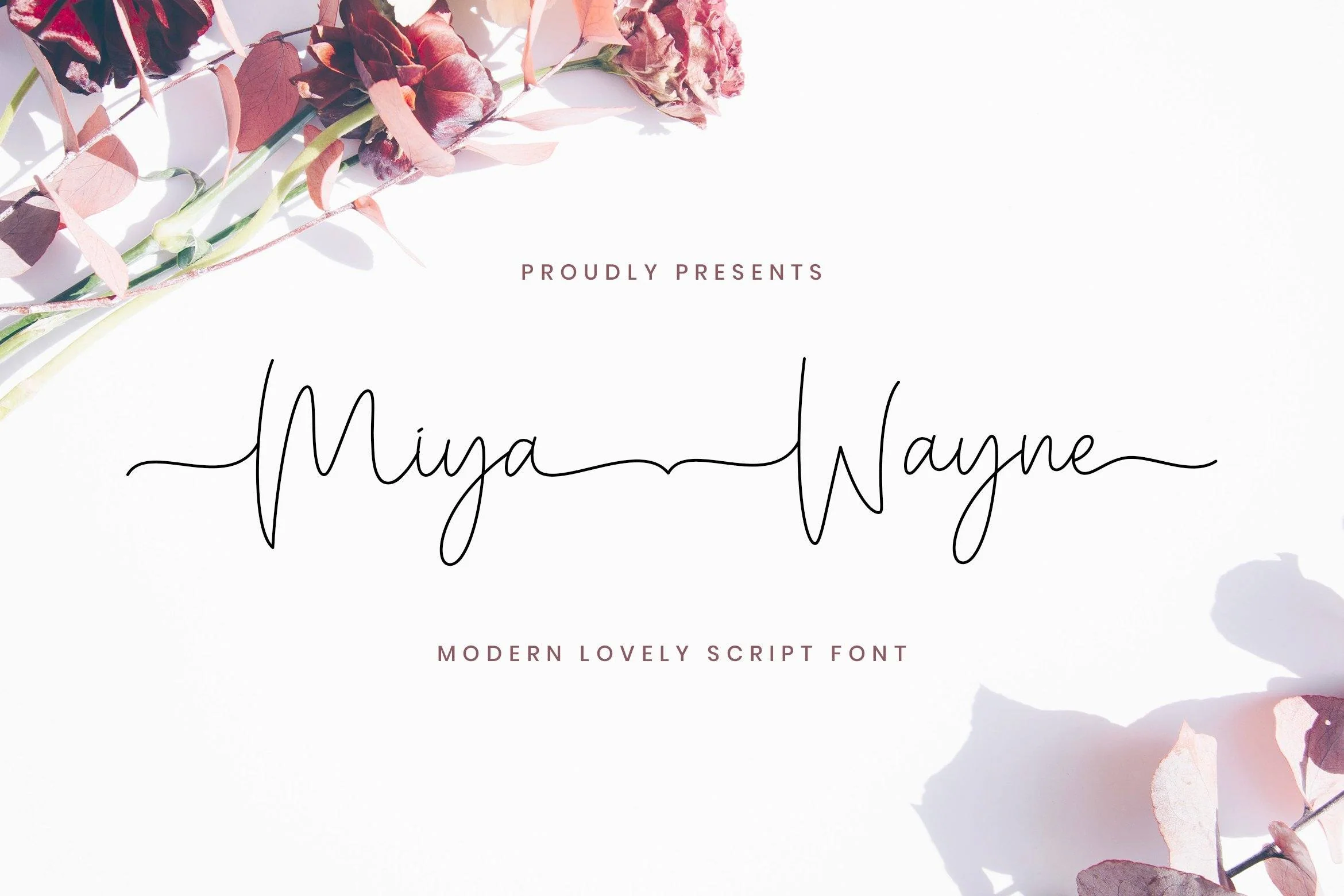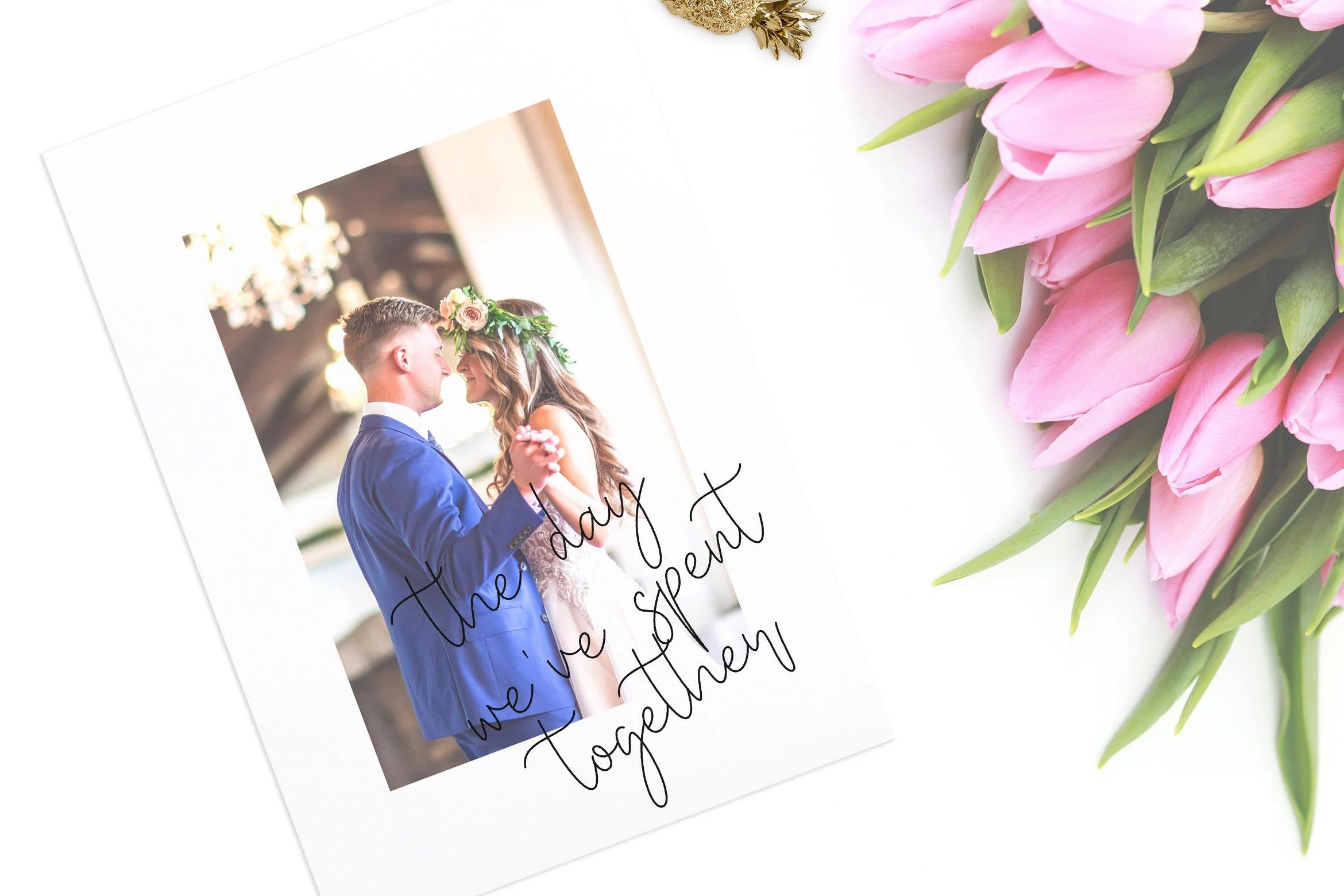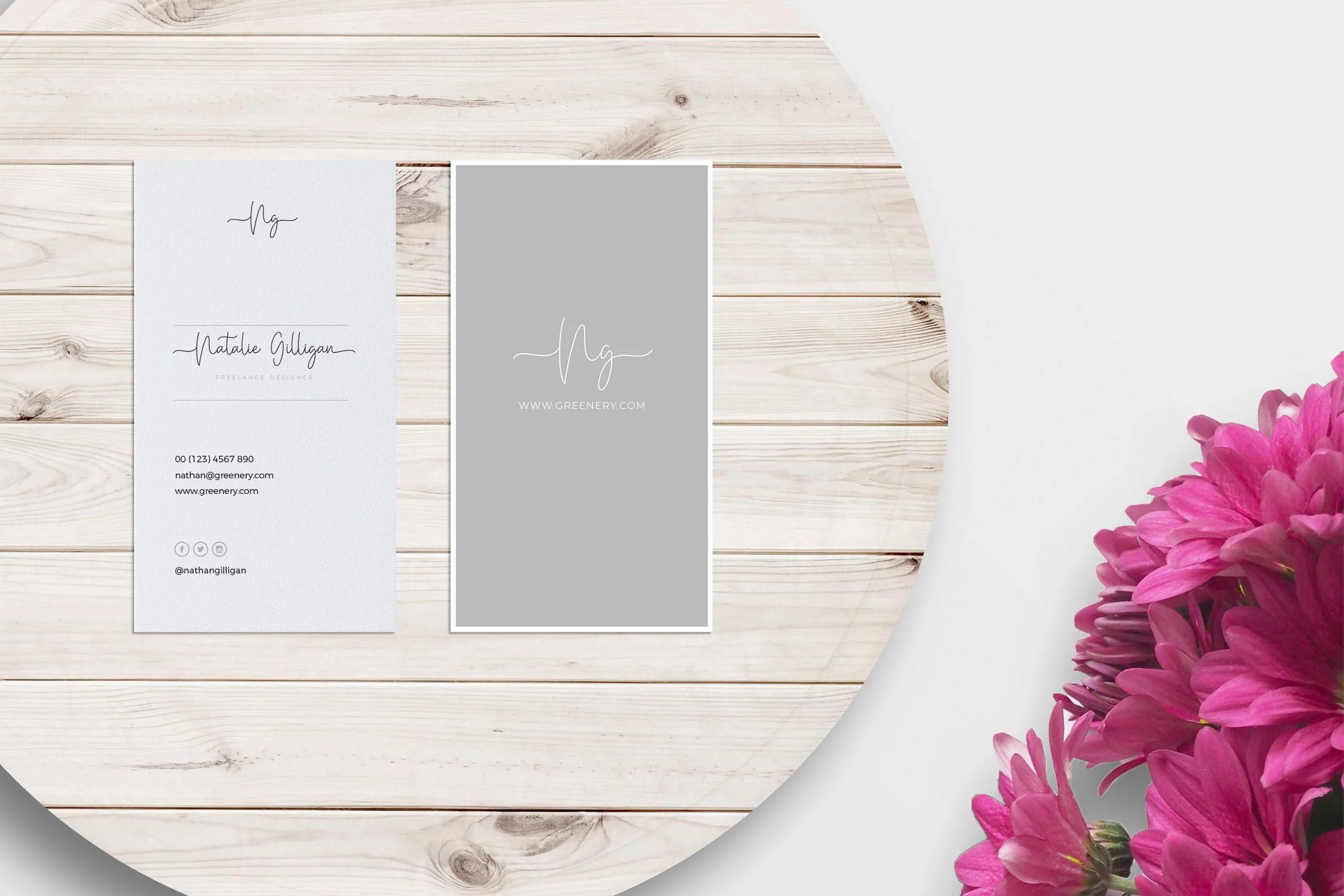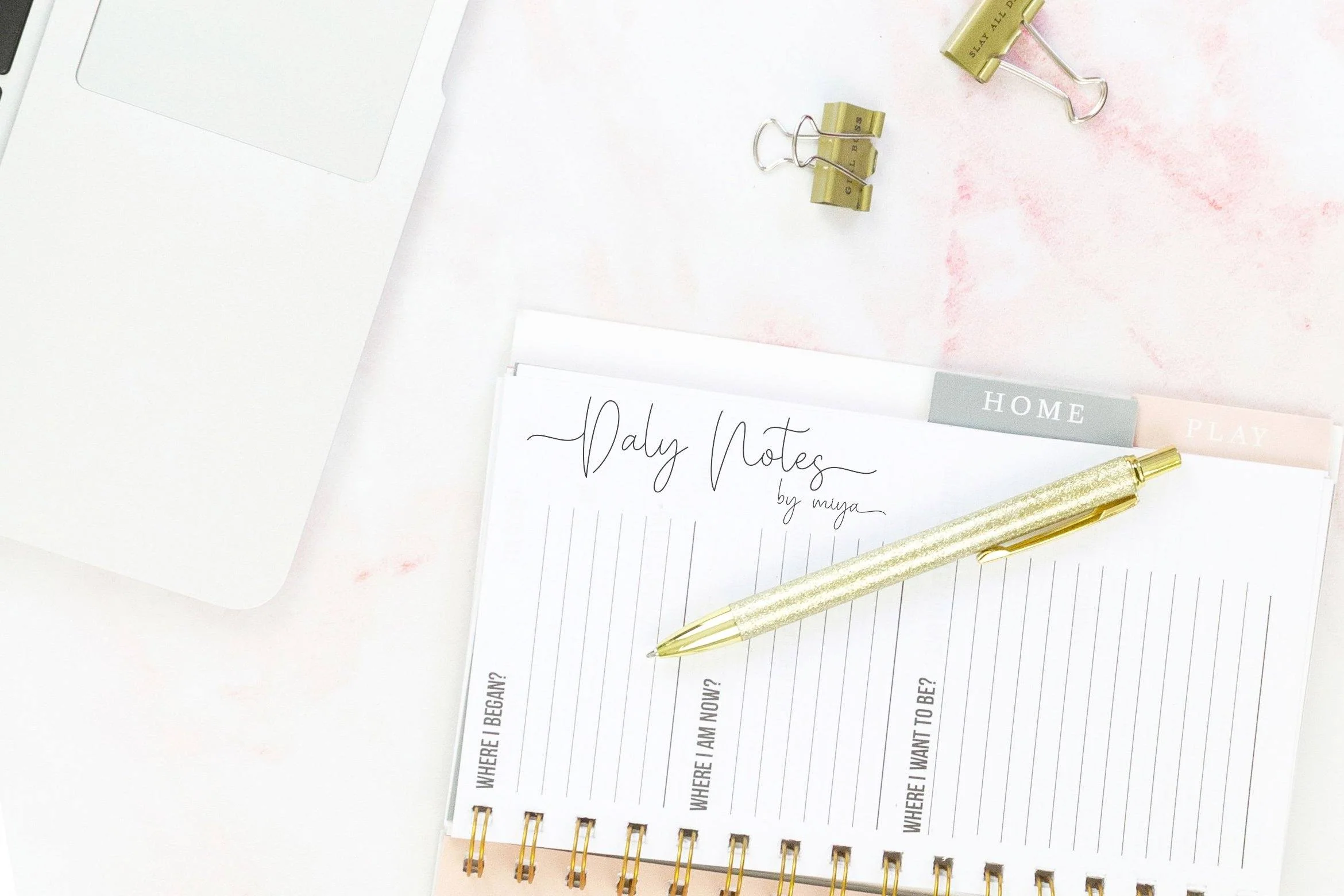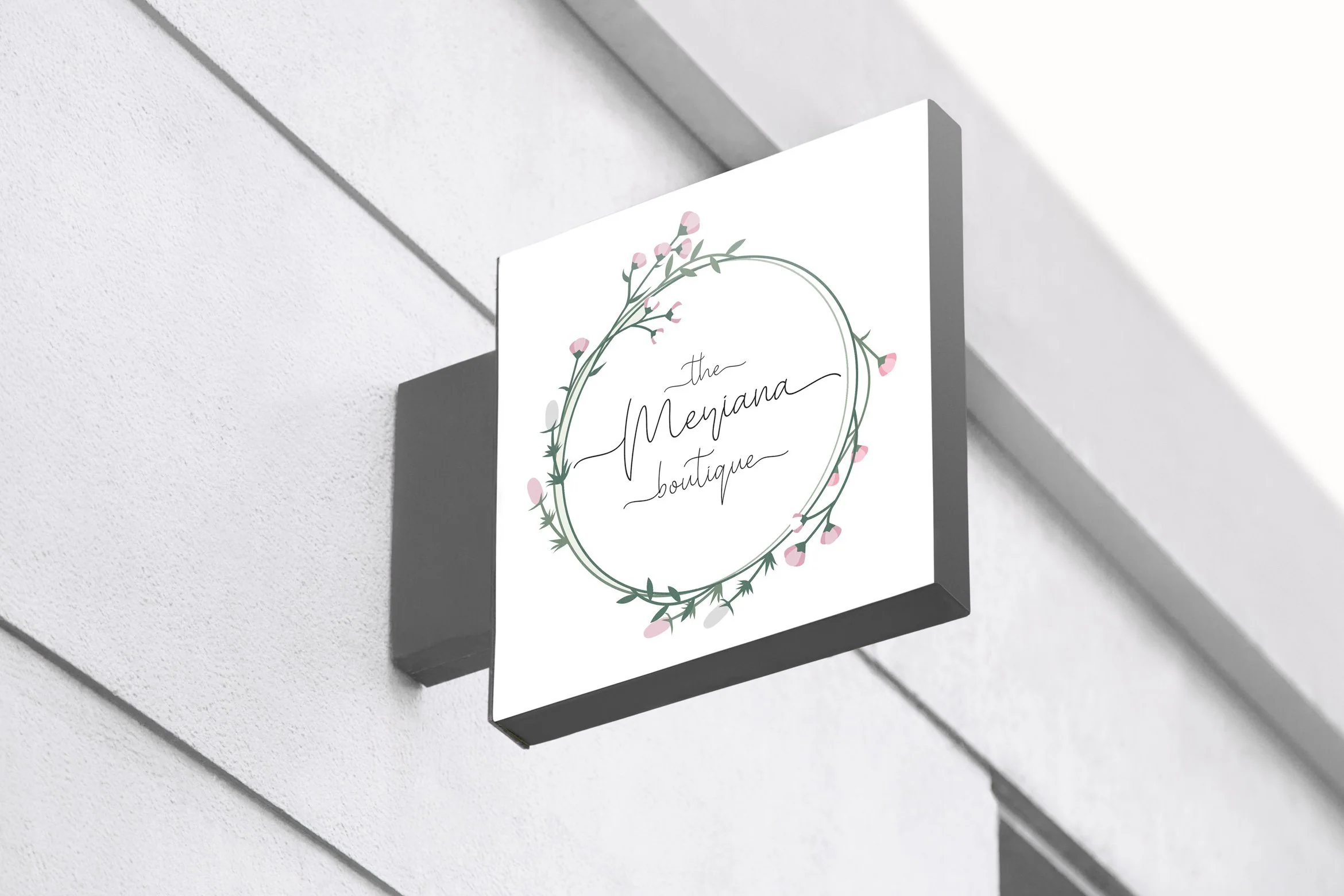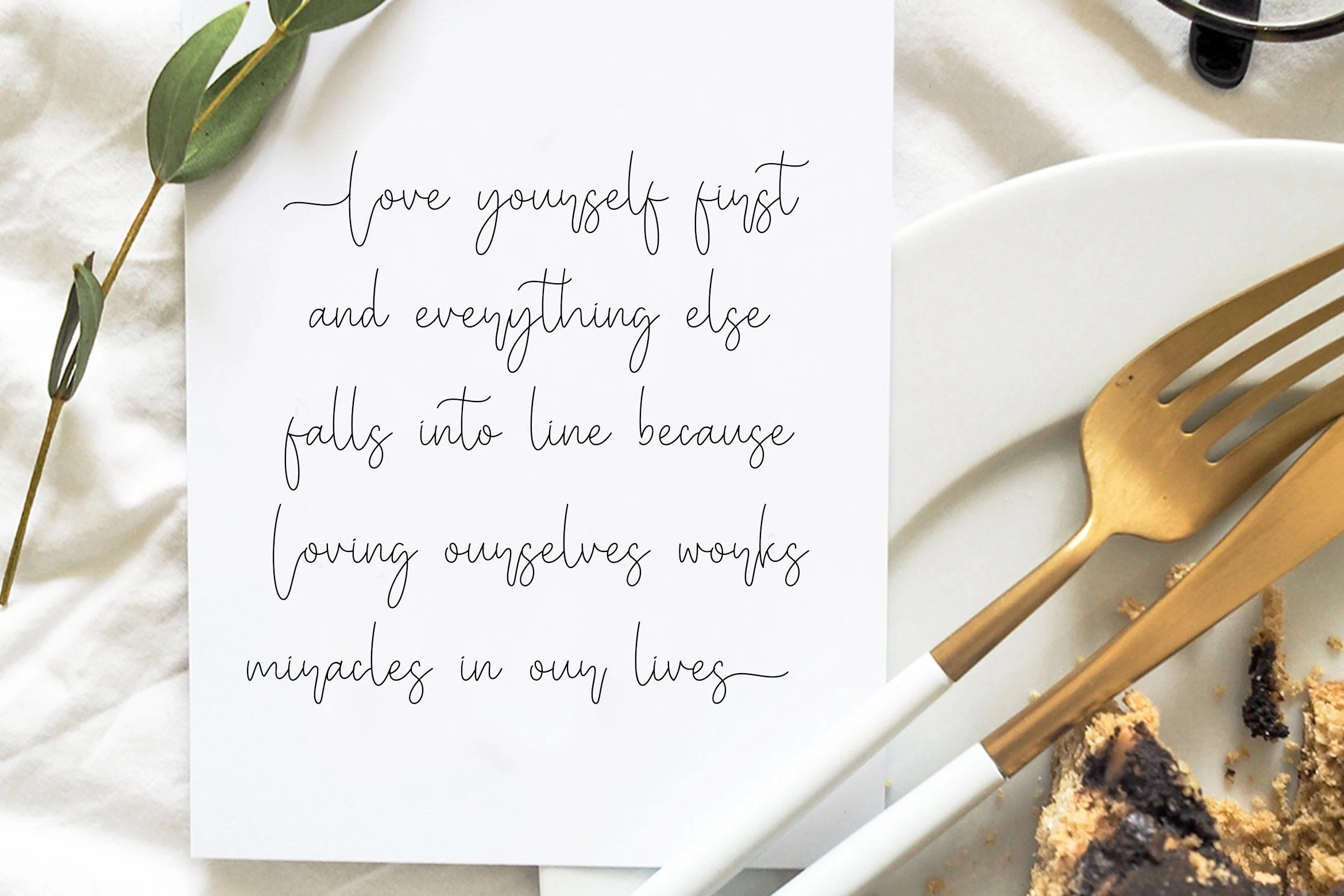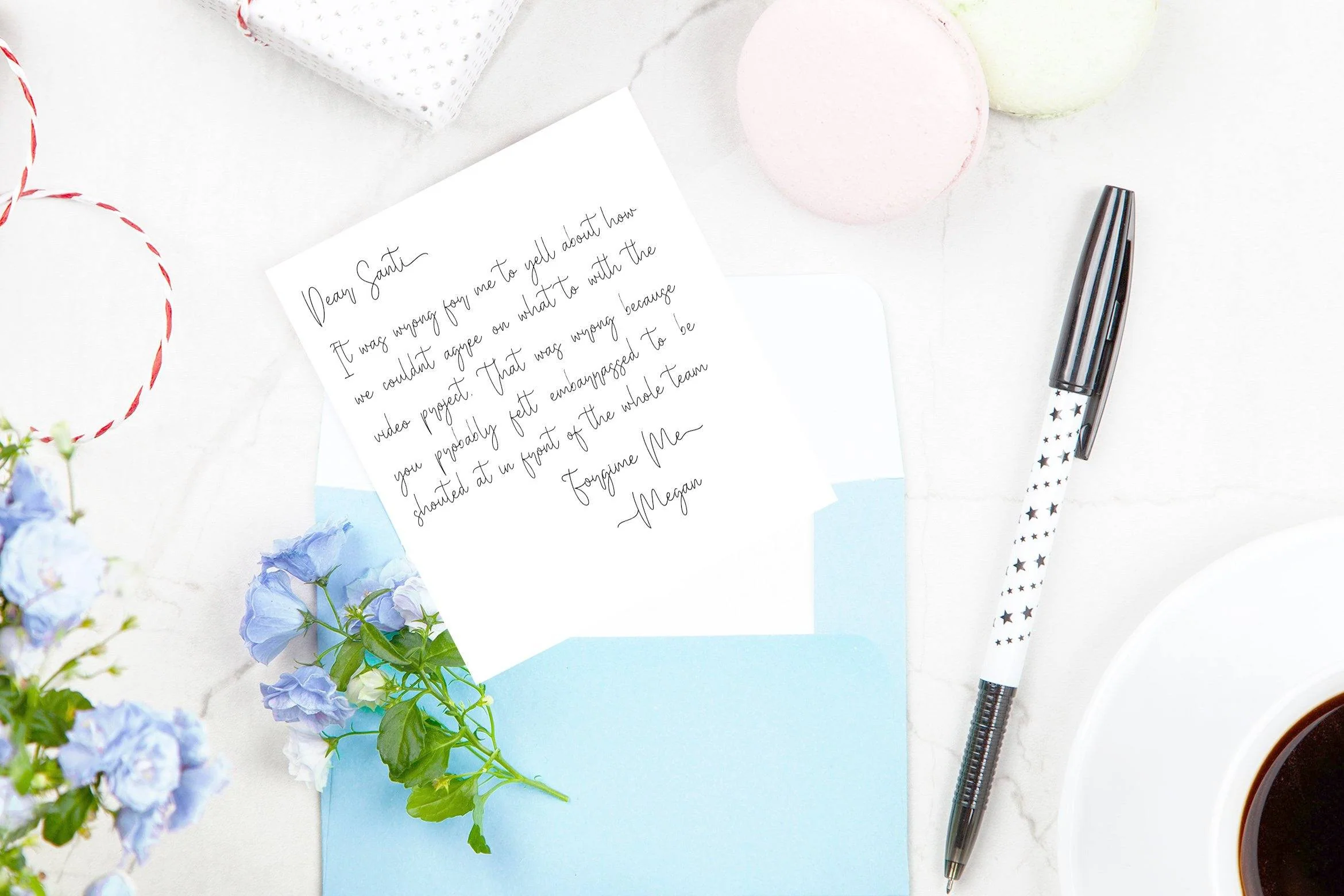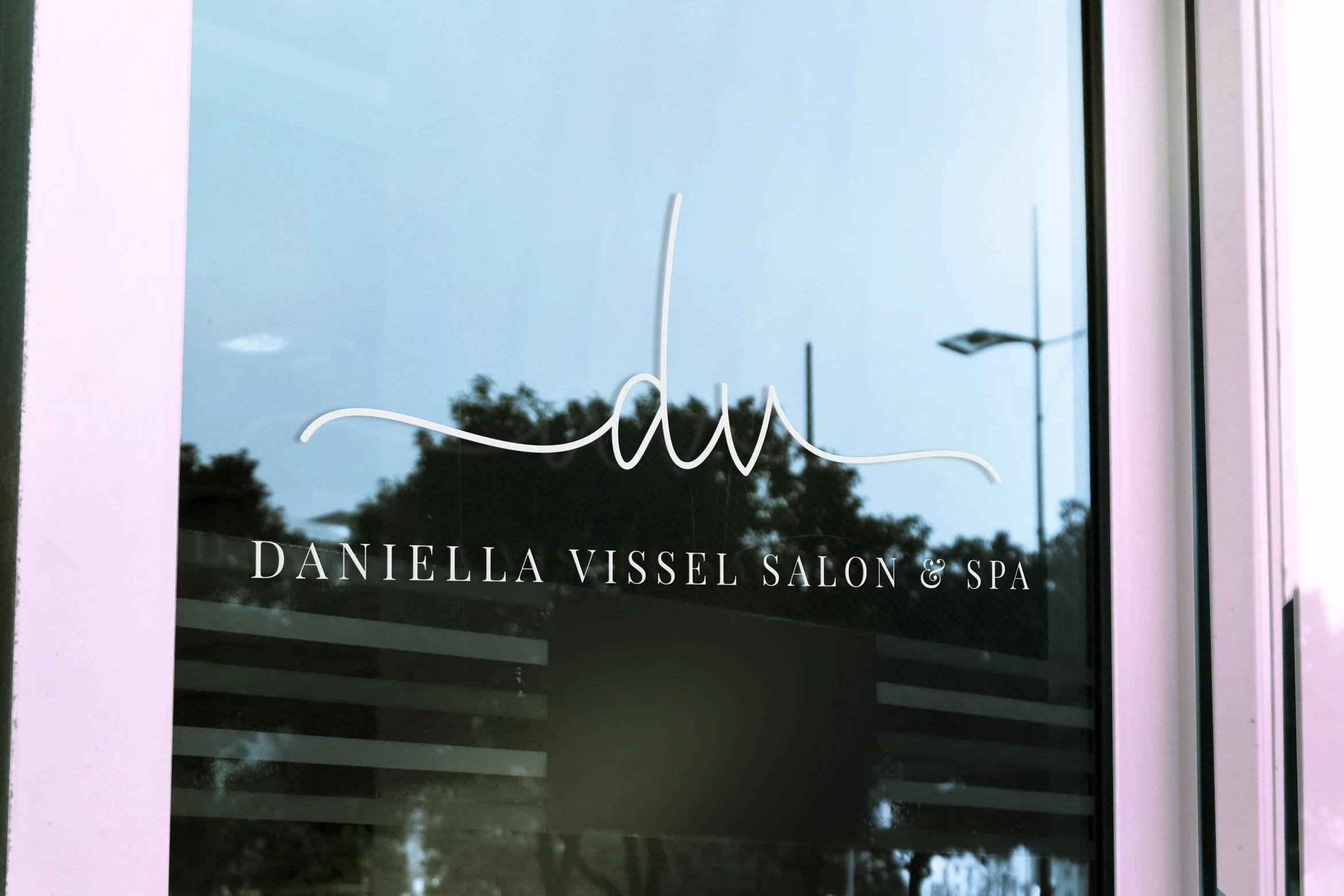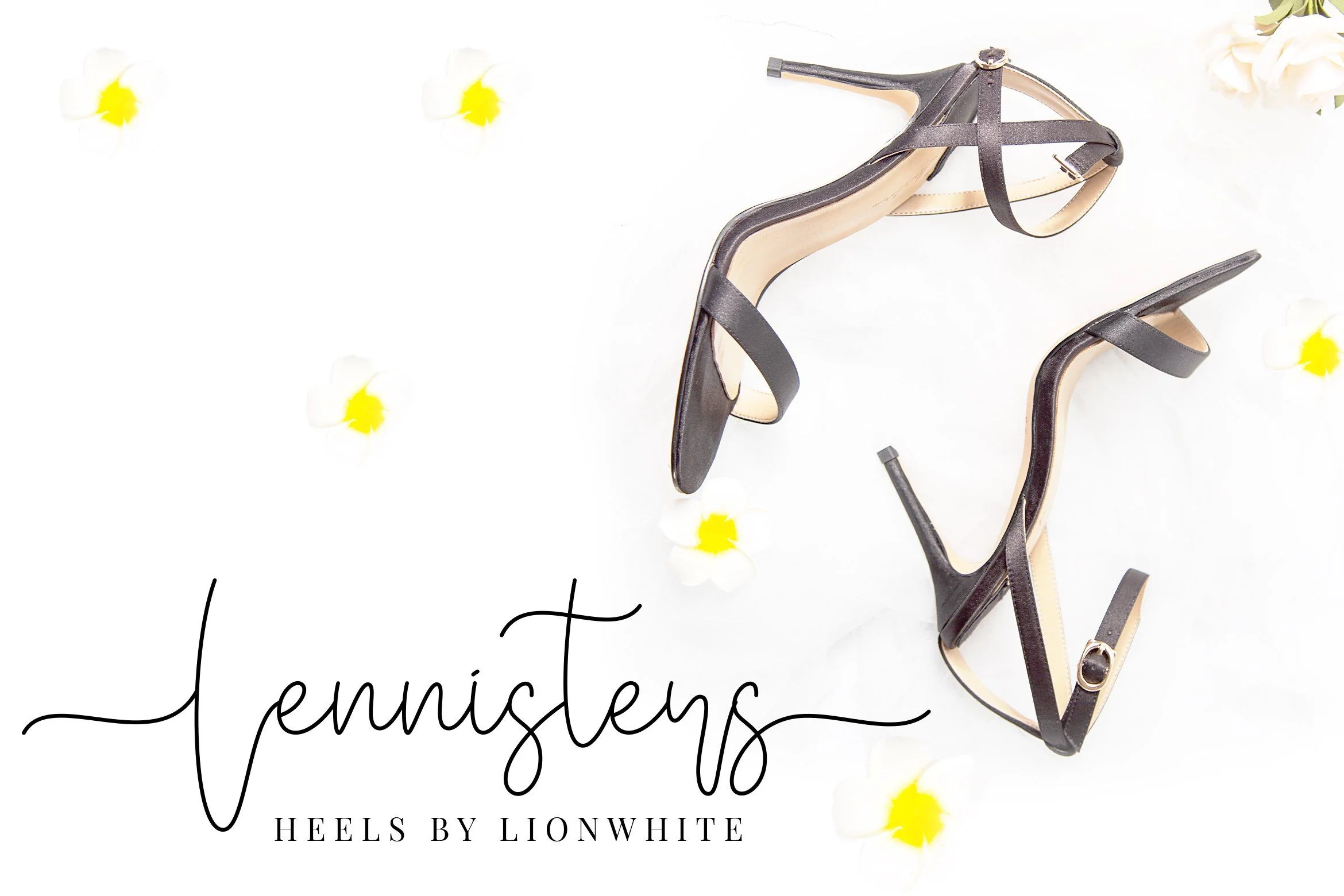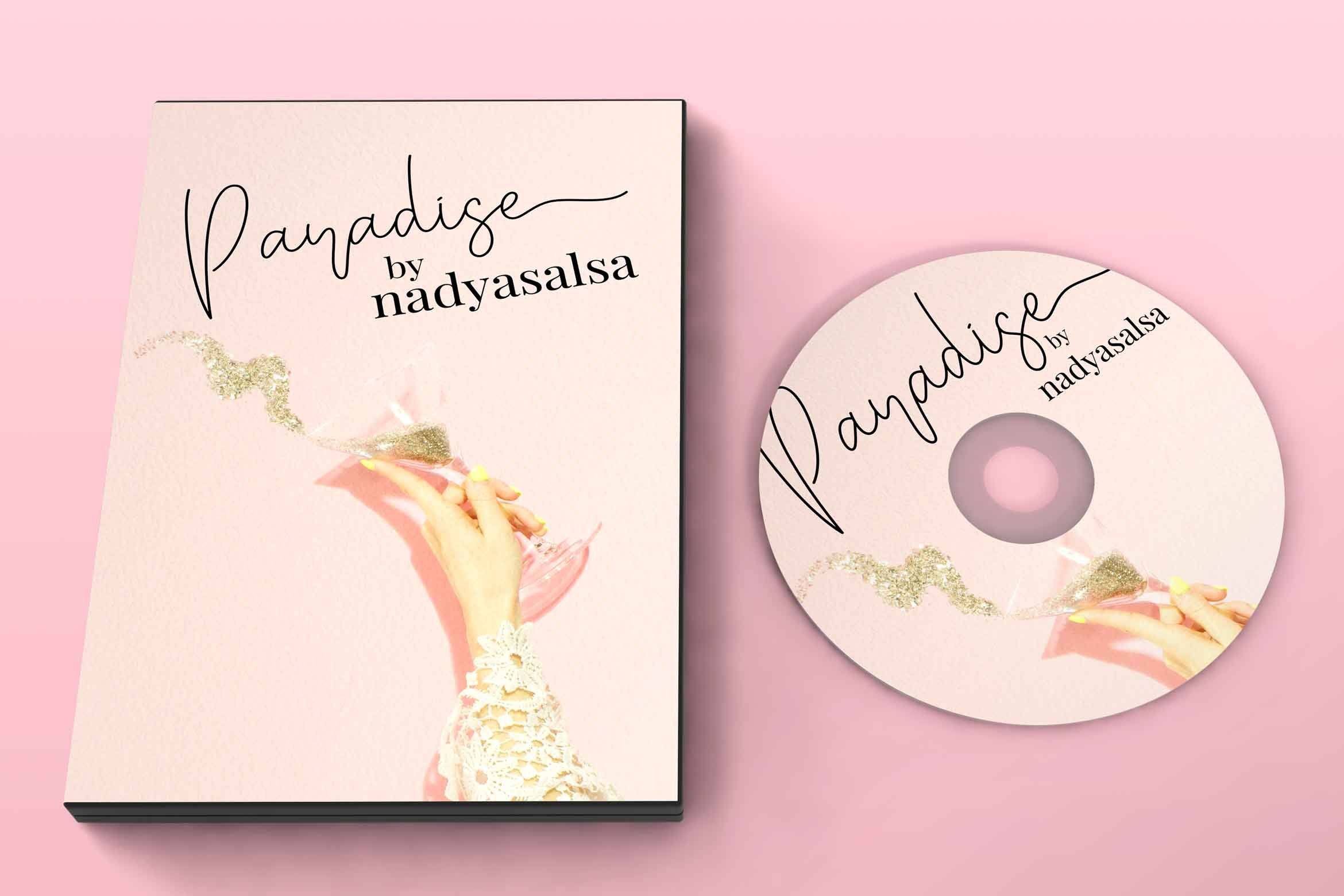
Miya Wayne - Modern Lovely Script Font
Introducing Miya Wayne - Modern Lovely Script Font
Miya Wayne is a Monoline Lovely Script Font with Handwritten Signature Style. The Miya Wayne font was created with original handwritting pen. This font is perfect for fashion brand, wedding invitation, business card, logo brand, signature, and then calligraphy.
This Font Template contains Classy, Elegant, Creative, Cool and has a Unique Concept.
Introducing Miya Wayne - Modern Lovely Script Font
Miya Wayne is a Monoline Lovely Script Font with Handwritten Signature Style. The Miya Wayne font was created with original handwritting pen. This font is perfect for fashion brand, wedding invitation, business card, logo brand, signature, and then calligraphy.
This Font Template contains Classy, Elegant, Creative, Cool and has a Unique Concept.